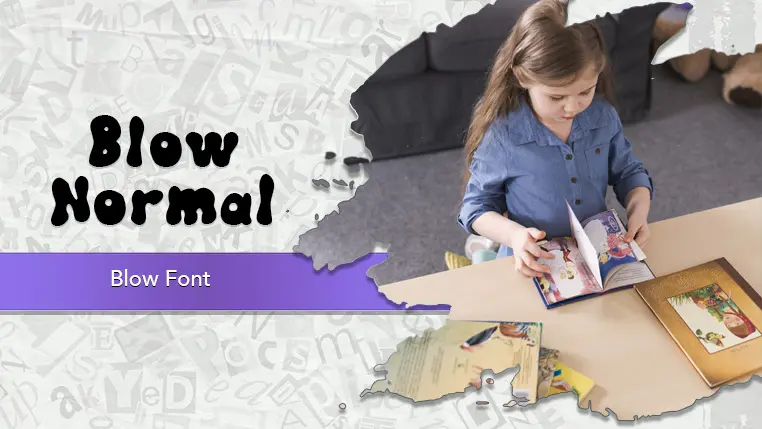
The Blow font family may be ideal for you if you enjoy working on an artistic design project. The lively, expressive look of this typeface, which was created by Dvoklik, makes it ideal for Playful Branding and Logos. It's perfect for titles, headlines, and general text in children's books, magazines, websites, and apps. Event Invitations like birthday parties, casual gatherings, or any event where a cheerful and informal tone is desired. and other light-hearted visual projects.
Normal are the one primary font styles of the Blow font family. You may build dynamic, visually appealing text layouts with the distinct flair that each style offers. With crisp, readable lines and a relaxed tone.